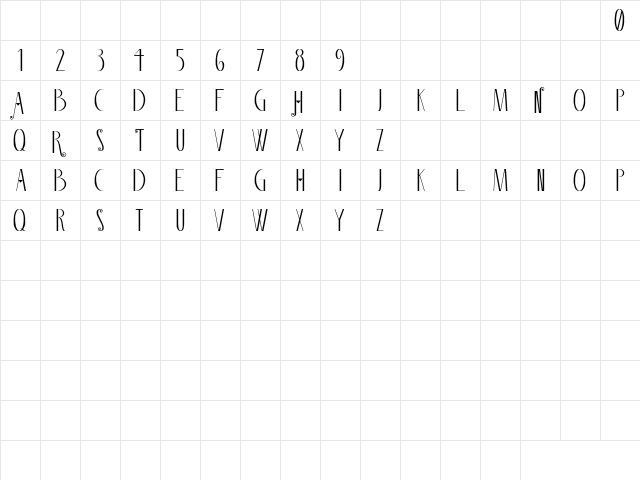
Little Twin Stars Regular
Design Context for Little Twin Stars Typeface
Little Twin Stars offers clean, dependable letterforms without strong stylistic allegiance, making it a practical choice for designers who need flexibility.